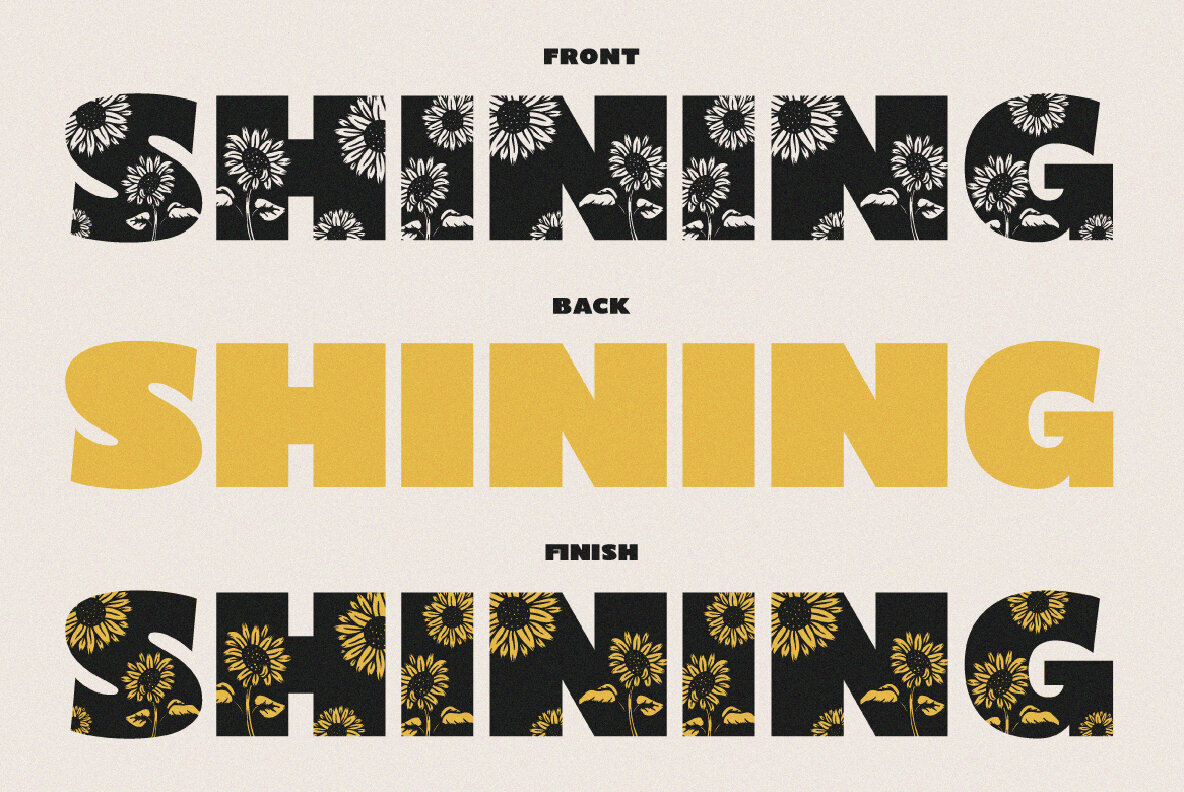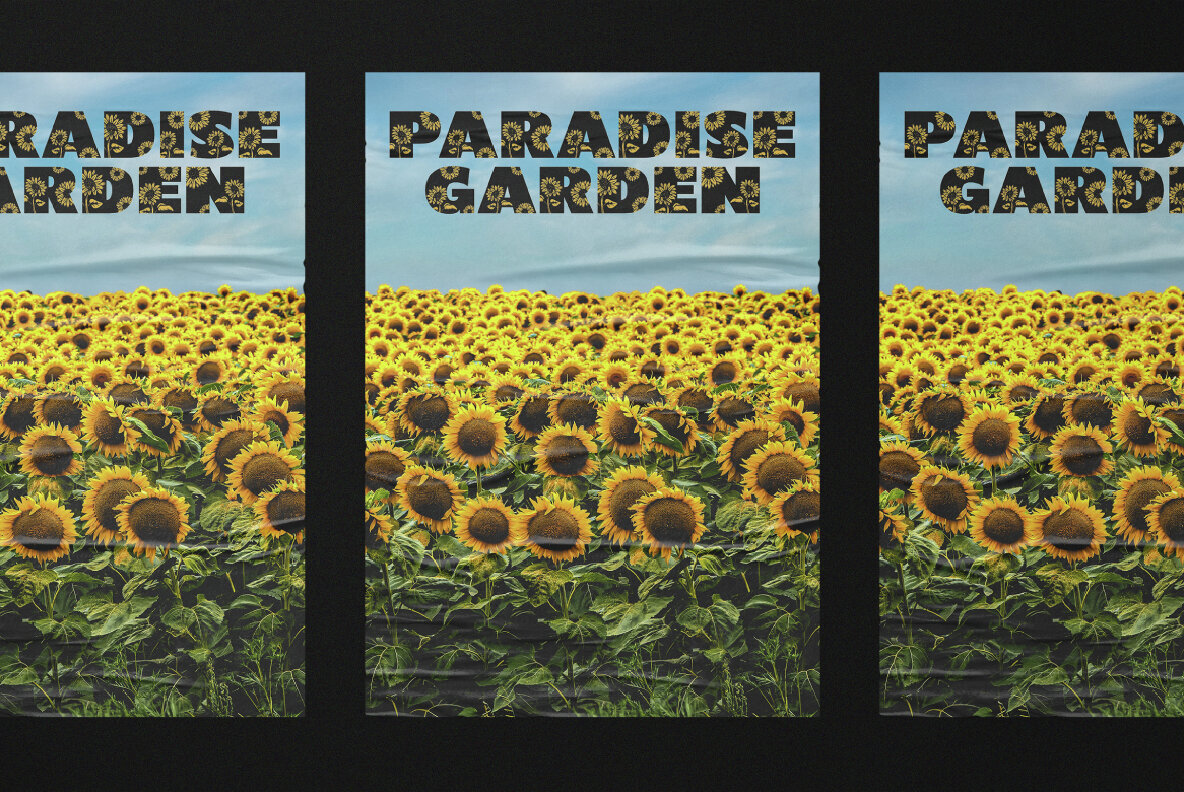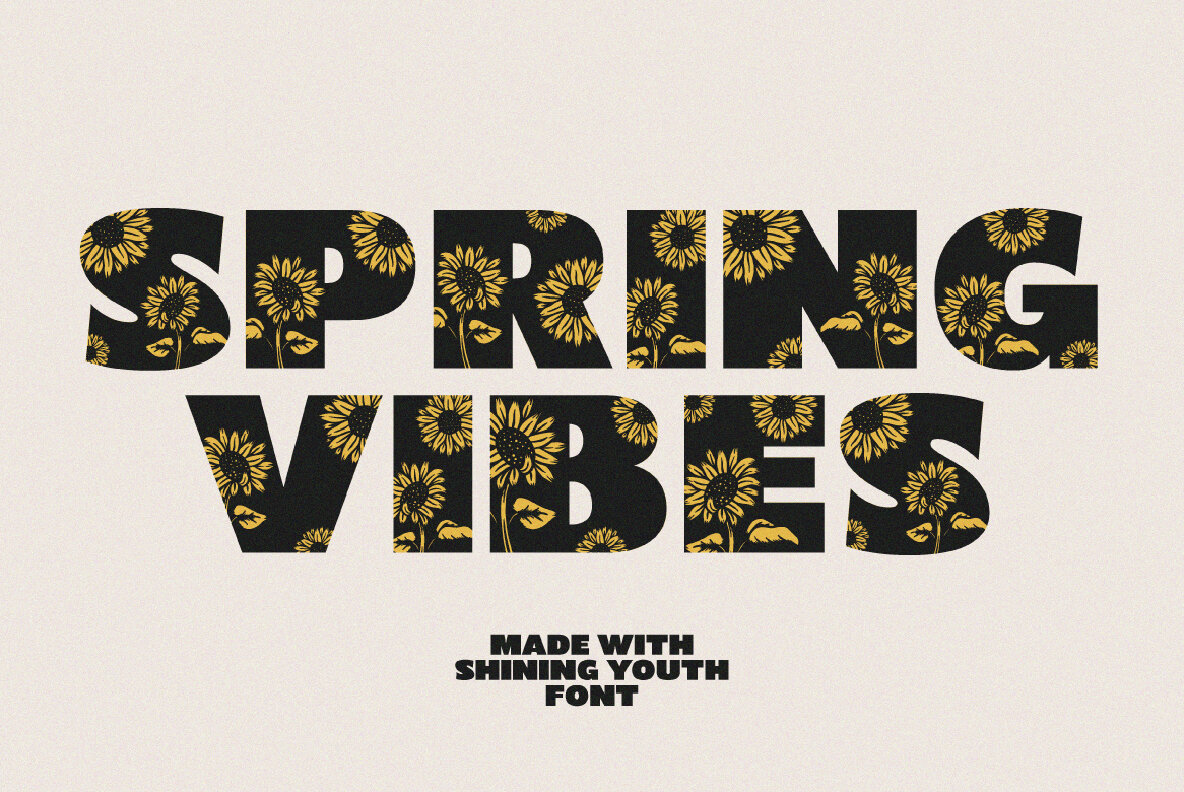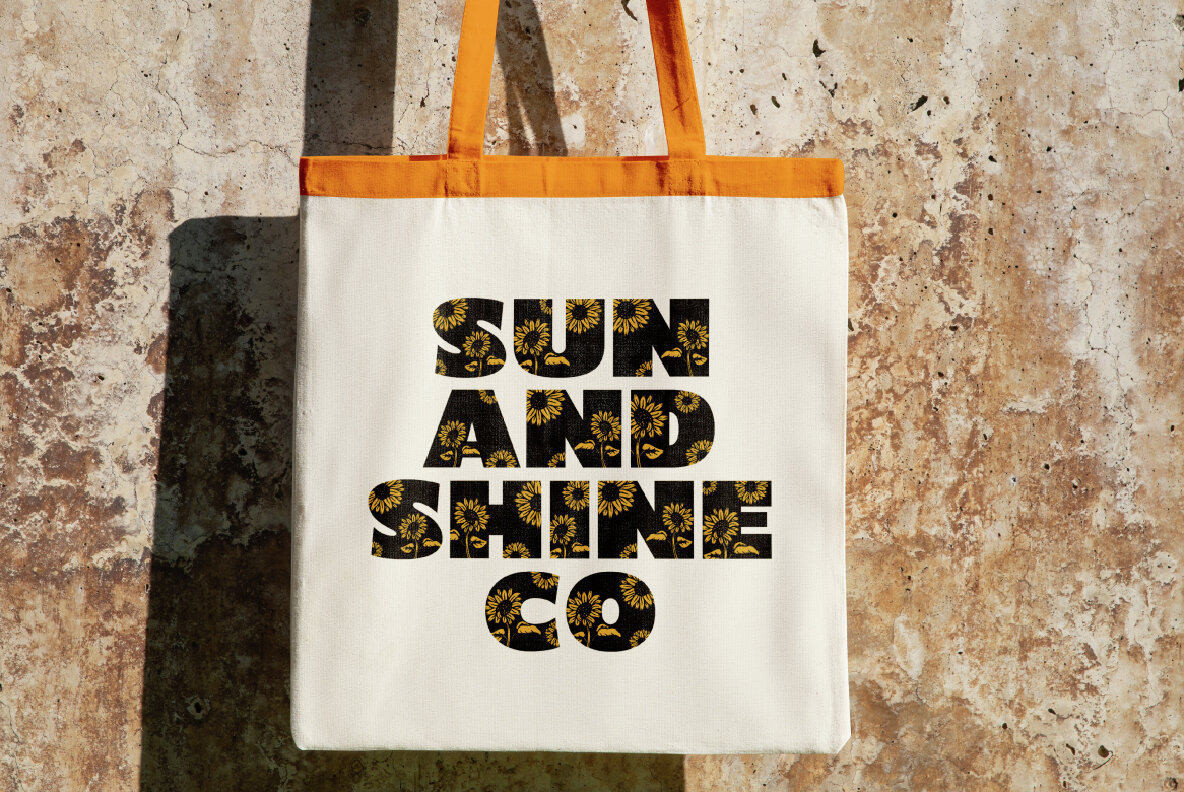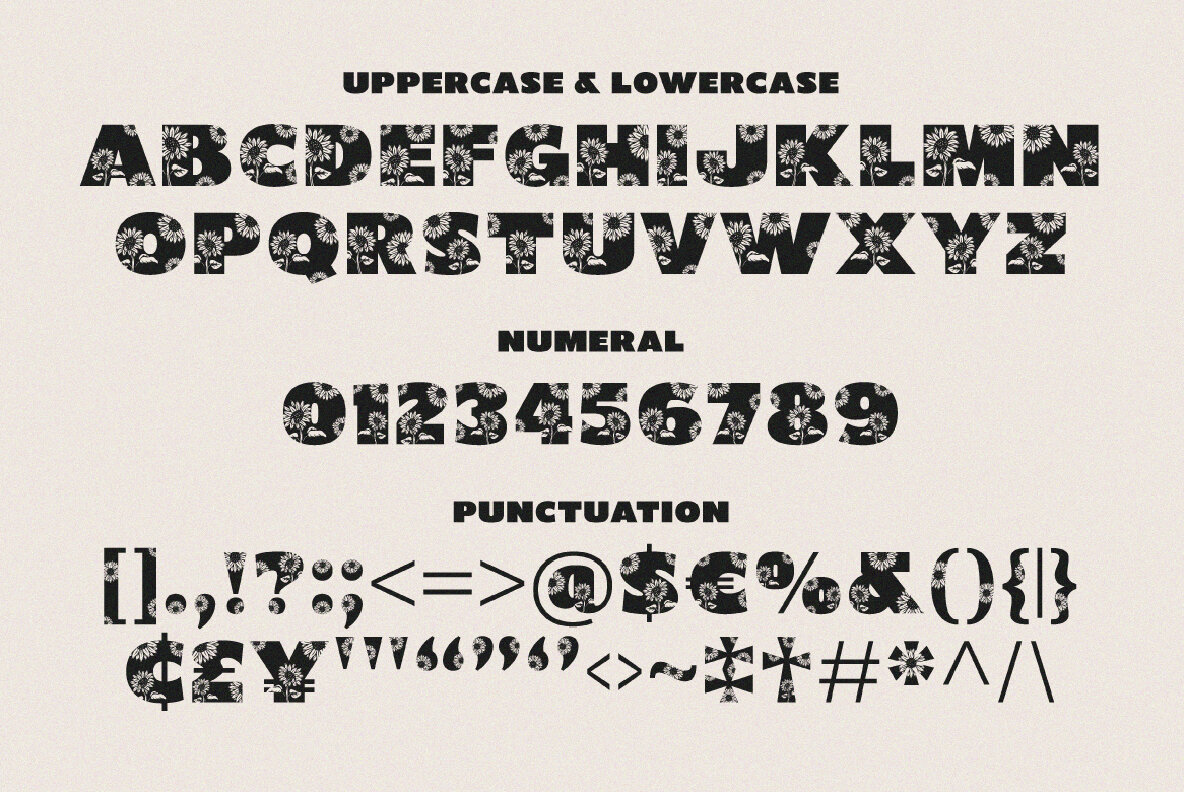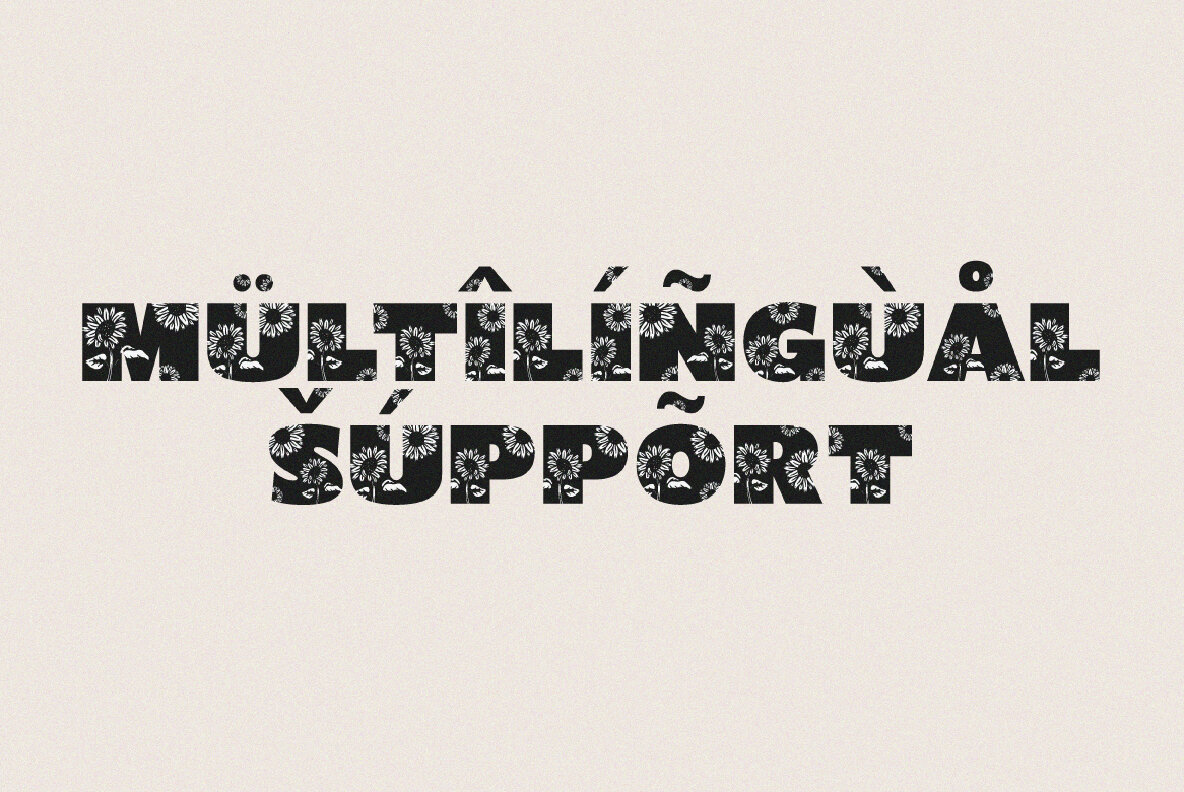
Shining Youth Font
"Shining Youth" is a bold typeface combined with a hand-drawn sunflower graphic. It offers two styles, Regular and Clean, allowing you to easily adjust colors to make your designs more vibrant. Ideal for posters and merchandise.